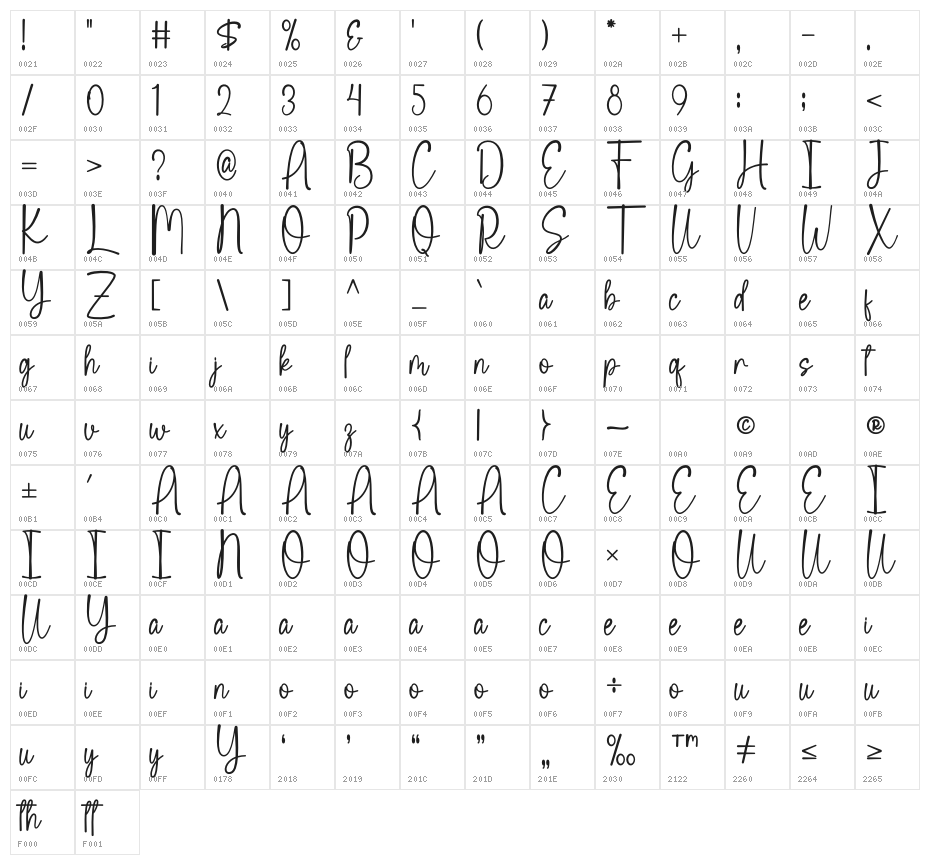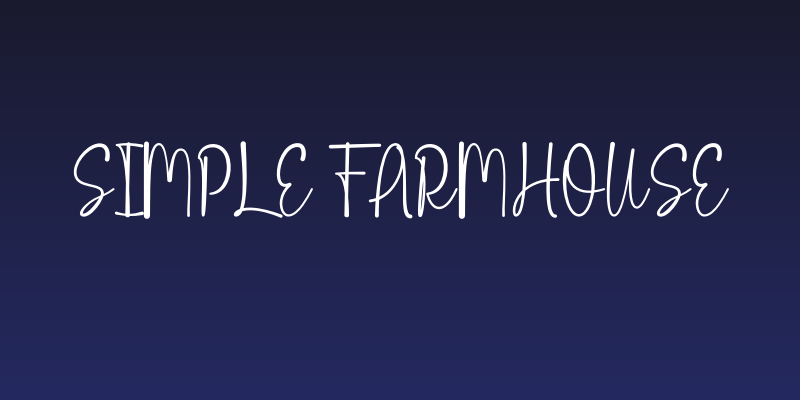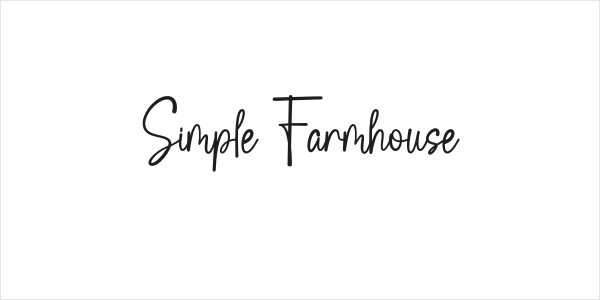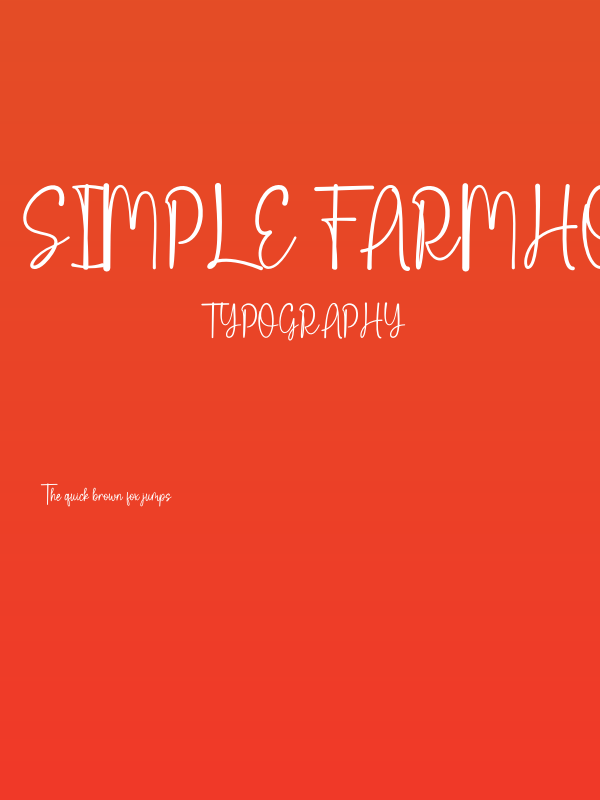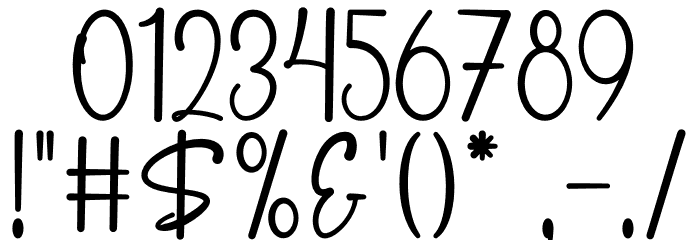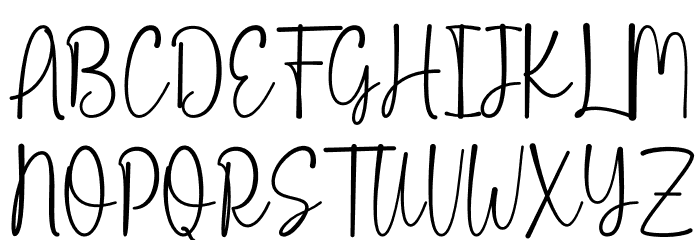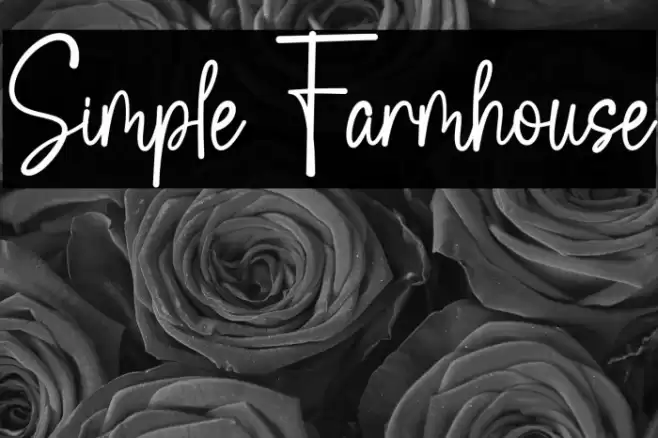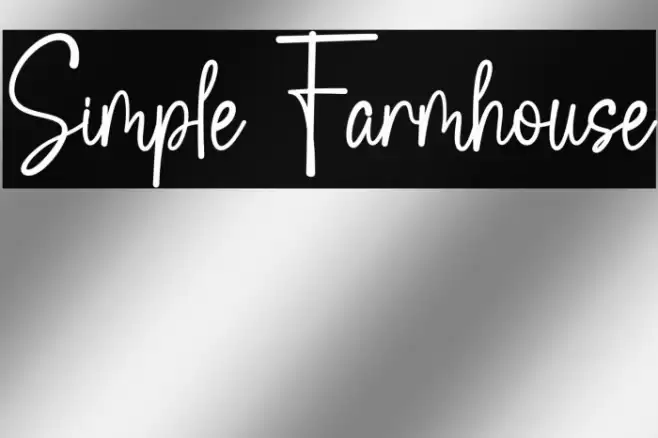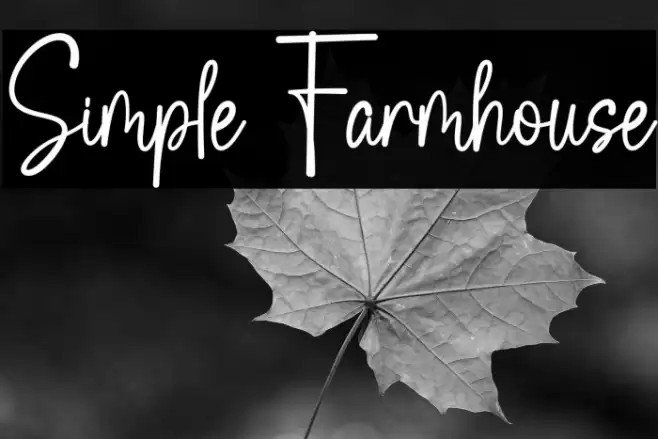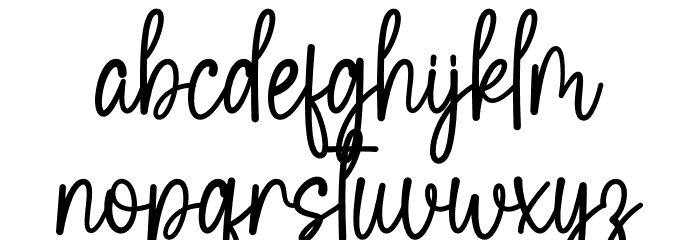
Simple Farmhouse Font
Simple Farmhouse Description
A playful, handwritten script with tall, narrow letters and a casual, organic flow. The strokes are consistent in thickness, giving it a friendly and approachable feel. The characters are slightly irregular, enhancing its hand-drawn charm.
| Overall Style | Decorative, Casual, Playful |
| Use Case | Logos, Headlines, Invitations, Decorative text |
| Proposed Projects | Greeting cards, farmhouse decor, invitations, social media graphics, branding for handmade products. |